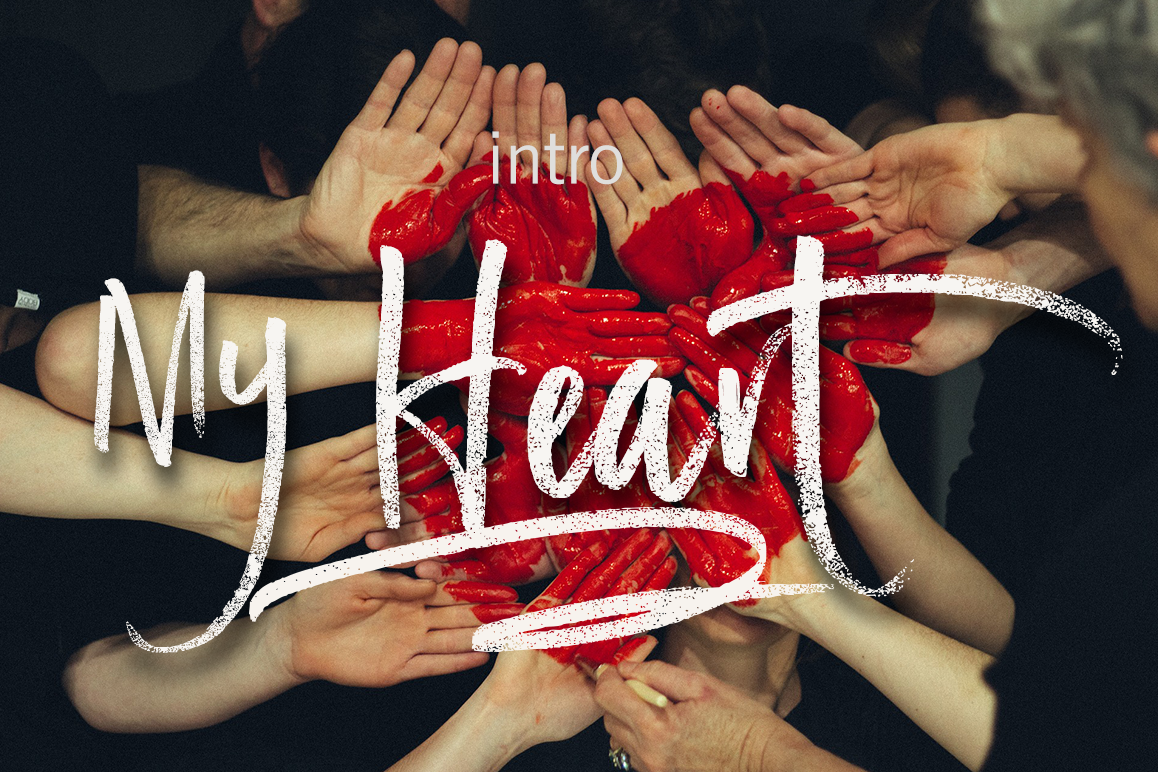
My Heart
Love of Hear
Heartless
Swash Brush
INTRODUCINGMyHeart (FontsTrio+swash)is the font style handmade dancing and then live trace to have unique ., the writing style is very natural. The Features of this fonts is; Standart ligatures, Stylistic Alternates, PUA Unicode (Private Use Areas),File Include ;